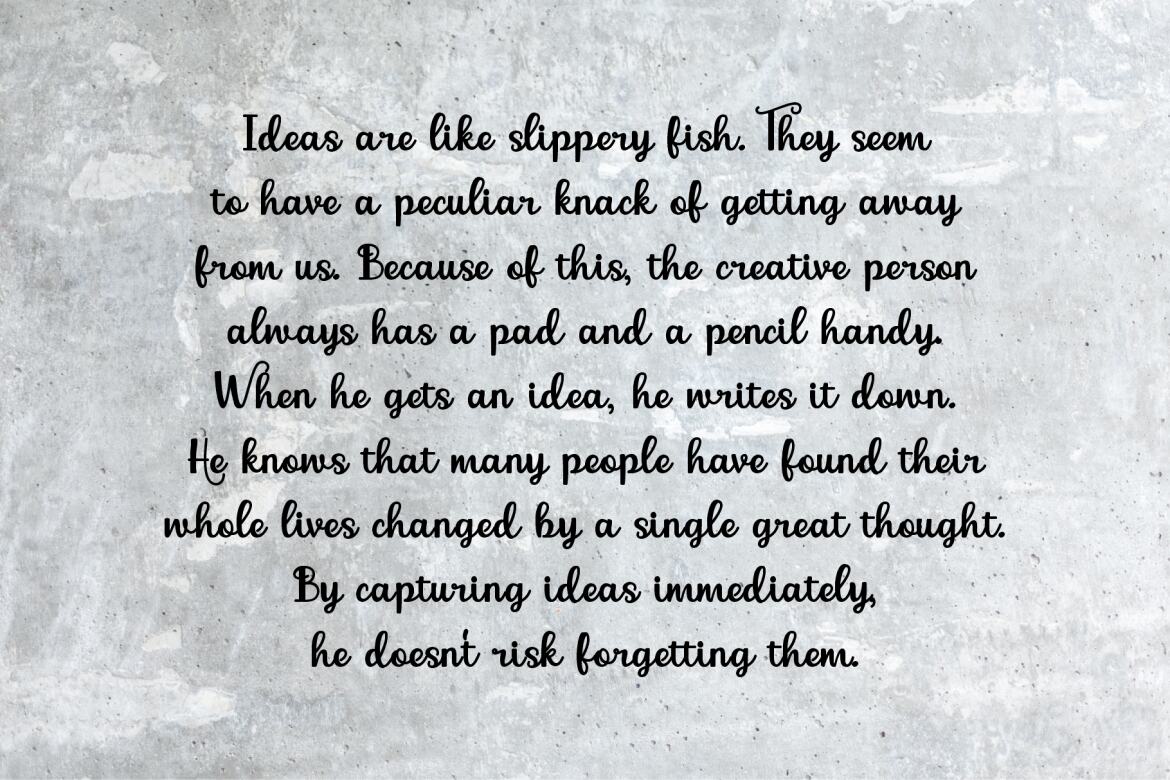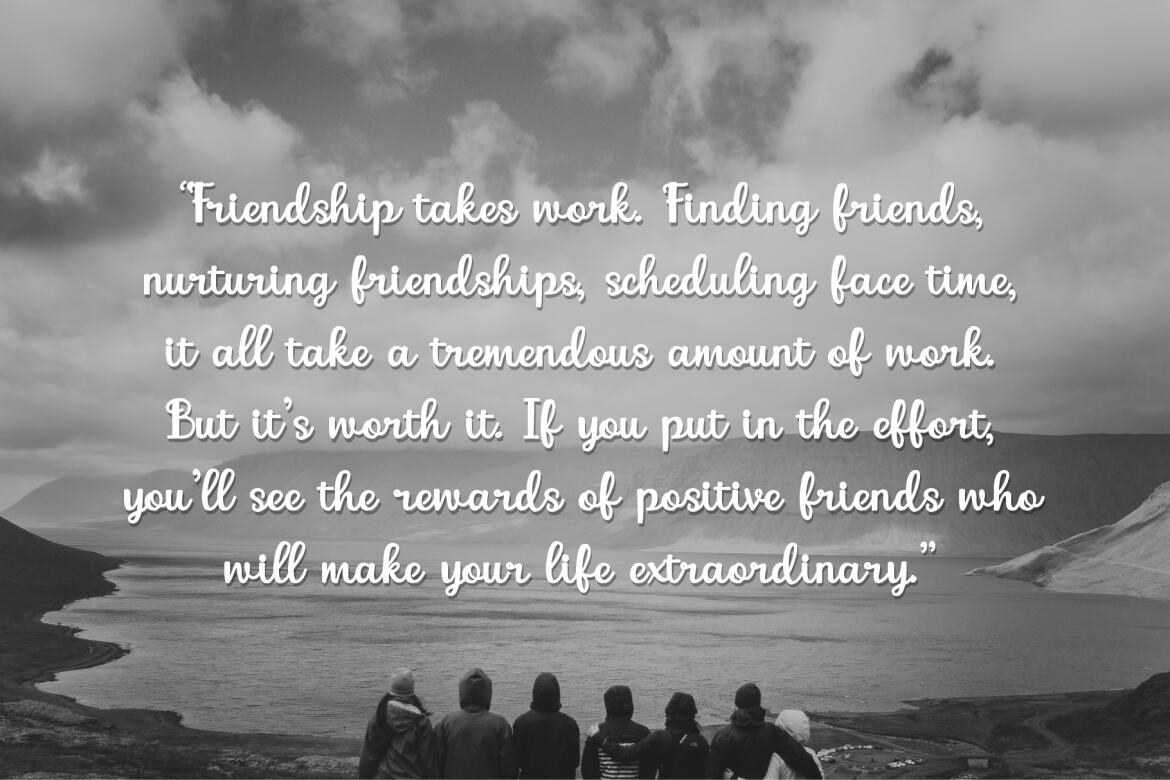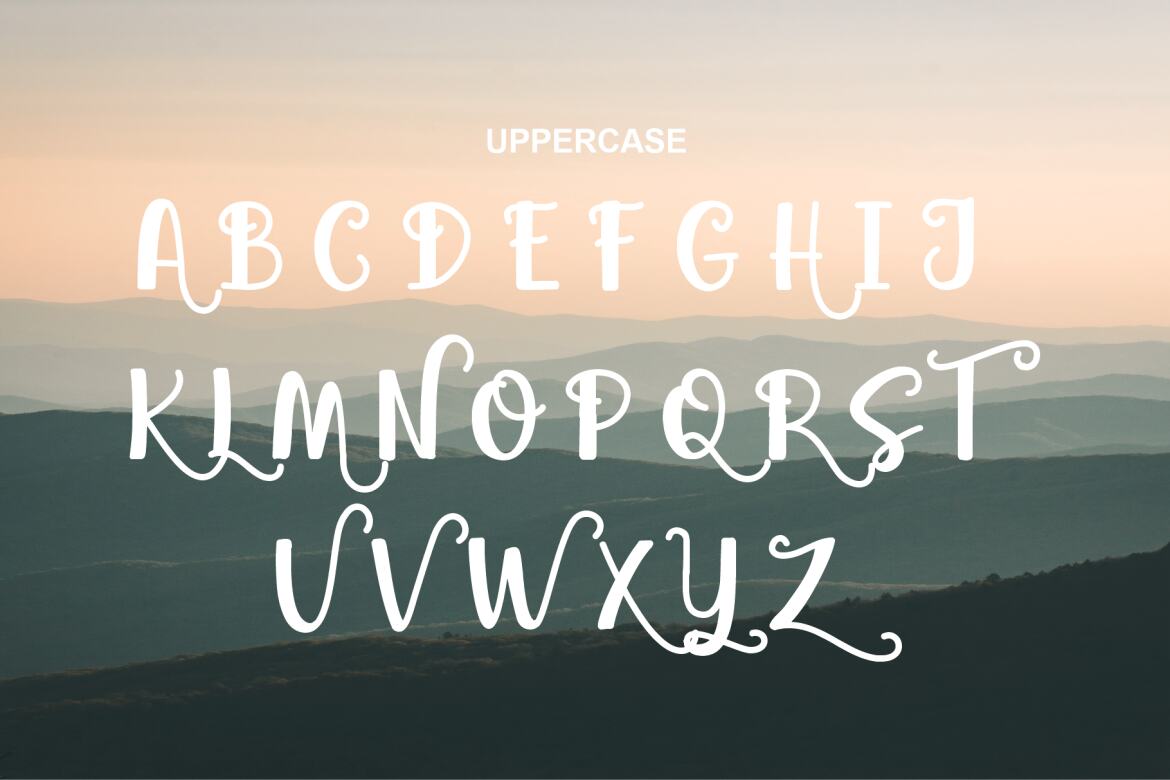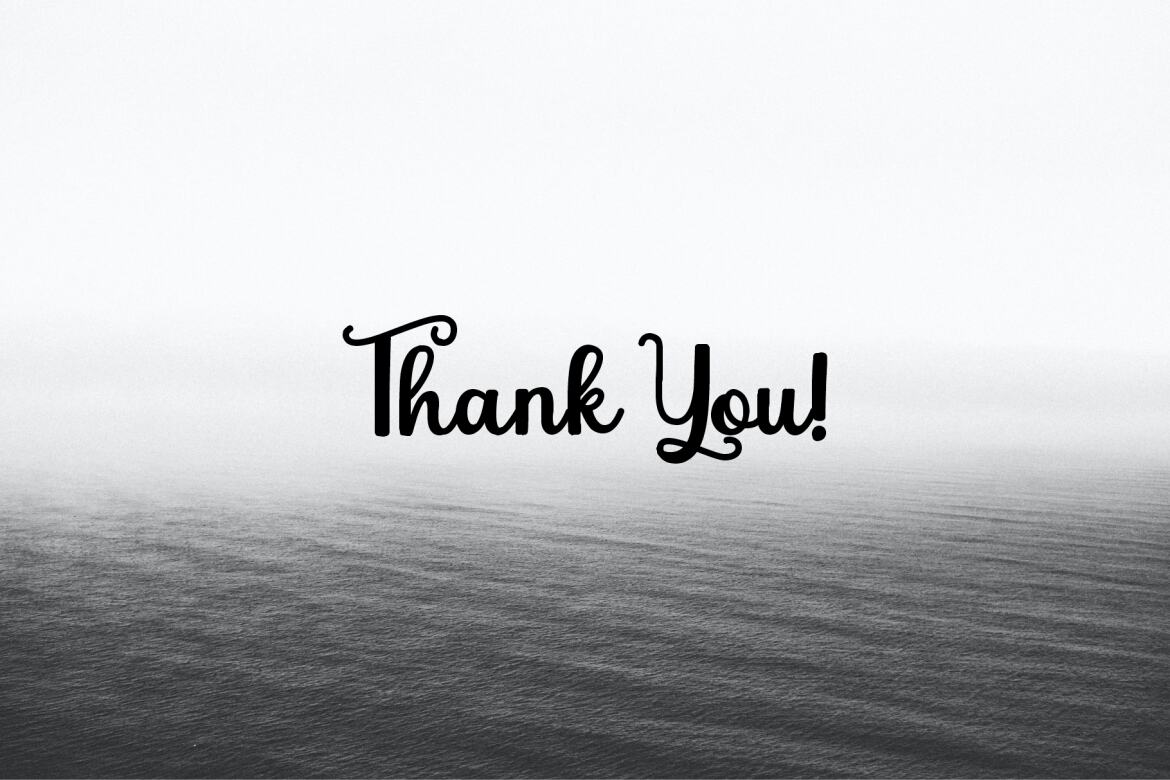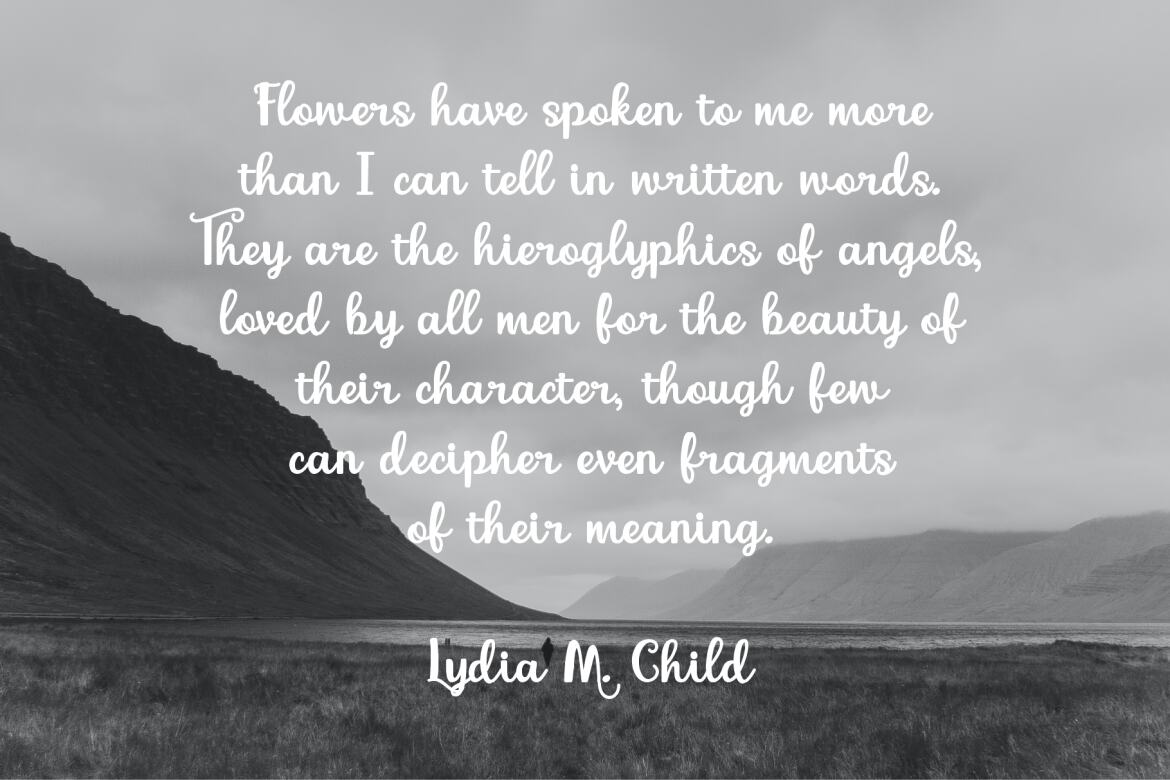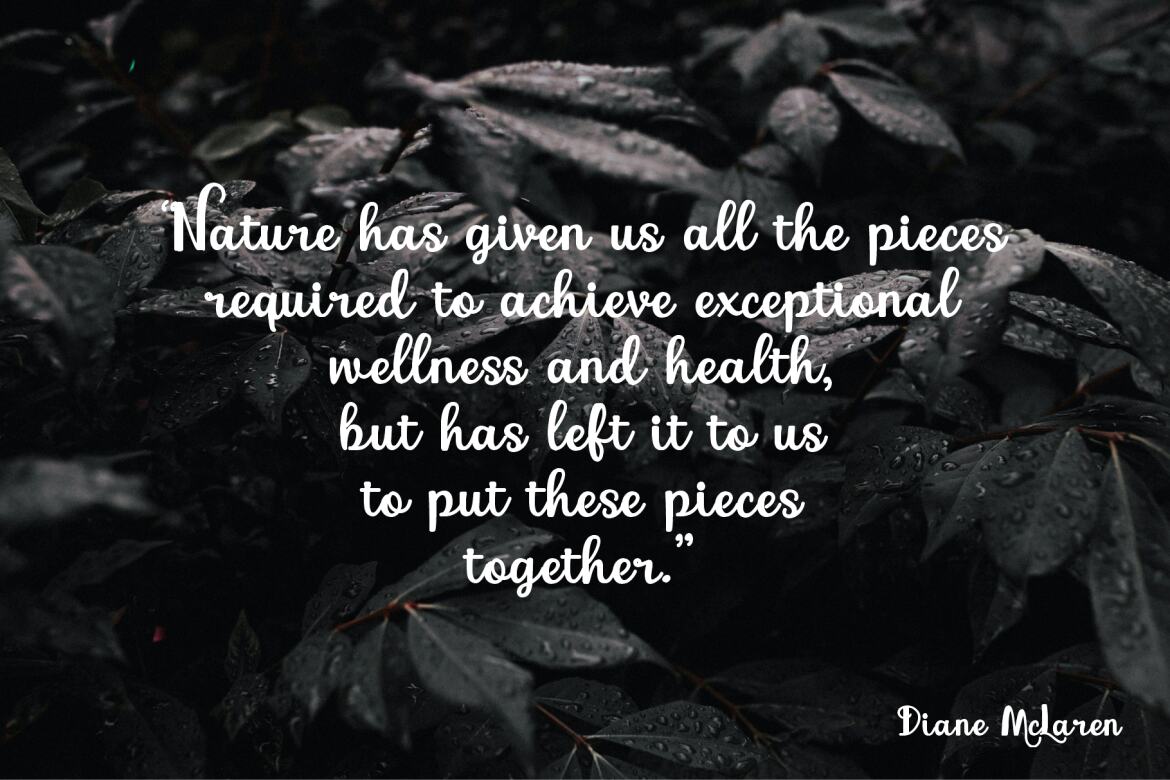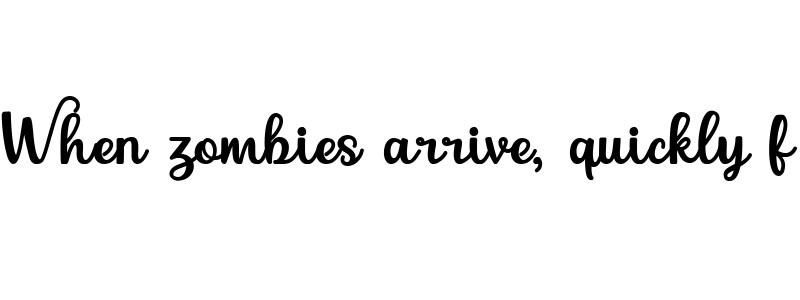
Marcellina FREE Script Font
Marcellina font is a minimalist signature script type fonts. Marcellina font is a sophistication with its lettering. The script font is typical, with its loops and exaggerations. However, by using a line, itself to be more luxurious. Use it to add vintage and mystique flavor to any design! It’s ready and Perfectly fit for your logo designs, headline, music projects & social media posts, event poster, brand imagery, product packaging, quotes, merchandise, etc.